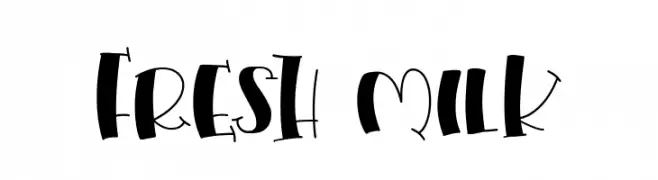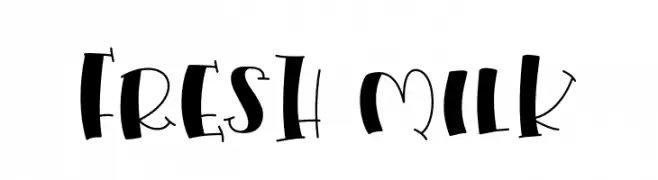
A bold, playful font with a whimsical and energetic style.
A bold, rounded font with a playful and friendly style.
A playful and whimsical font with decorative curls and loops.
A playful and bold font with curvy, whimsical letterforms.
A playful, whimsical font with dynamic curves and a hand-drawn feel.
A bold, playful font with rounded characters and a modern twist.
A bold, playful font with rounded characters and a modern, energetic style.
A bold, playful handwritten font with thick, rounded strokes.